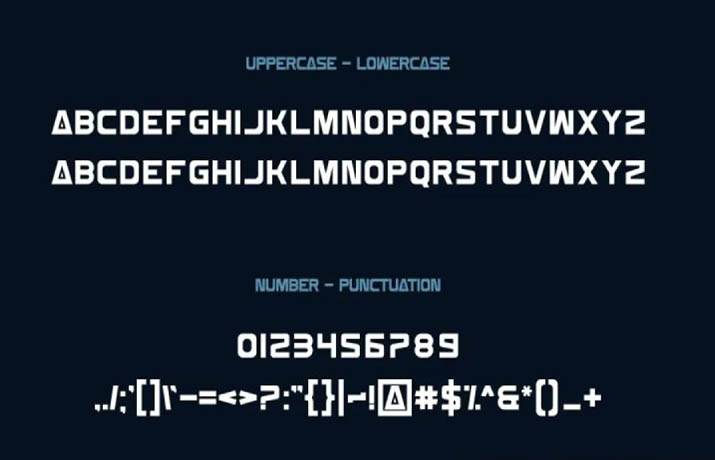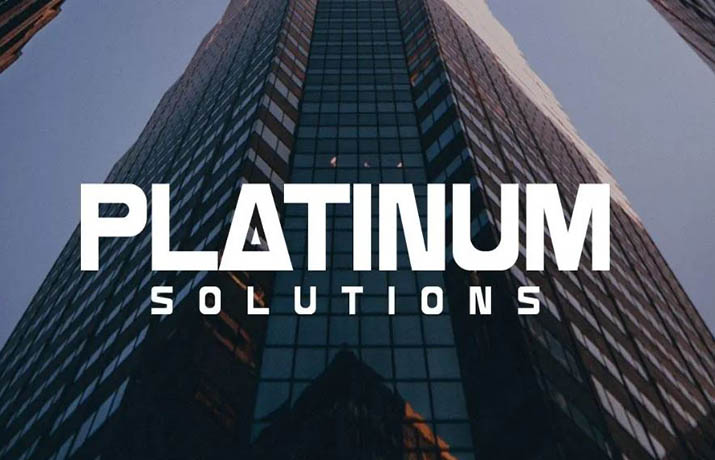
Vandav Font is a bold and condensed typeface with solid strokes and compact letterforms. It is ideal for larger titles and headlines. It was designed by Ahmad Fauzi.
All the structure is created by the designer with thick strokes in which he put the medium height and stability. This is why you can also find a technical look within the entire typeface.
Further, features blocky and square letters that will add a unique look to your typography. Try it out for poster titles website headers, logo designs, and more.
Features of This Font
- Uppercase letters, numerals, symbols & punctuation
- 102 unique glyphs
- 57 multilingual languages support
Vandav Font (Details)
| Font Name: | Vandav Font Family |
| Style: | Display, Sans Serif, Bold |
| Font Designer: | Ahmad Fauzi |
- You can use it for major design purposes. Like Designing signs, creating brochures, technical documents, banner ads, stationery, movie posters, titles, printing on t-shirts, etc. Also, it can be used for gift cards and birthday cards.
- The perfect font for crafting bold titles for posters, flyers, banners, website headers, and much more.